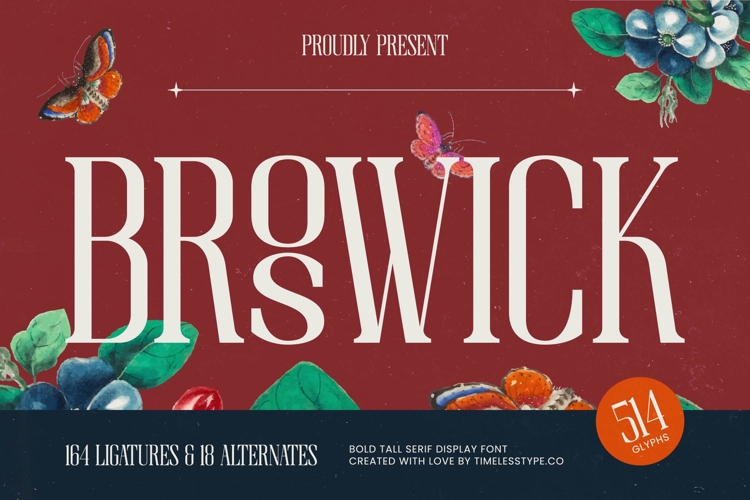
Broswick - Bold Tall Serif Display Font
Unveil unparalleled elegance with Broswick - Bold Tall Serif Display Font, a truly magnificent typeface designed to make an unforgettable statement. This premium display serif commands attention with its imposing height, distinctive bold weighting, and exquisite high-contrast letterforms. It masterfully blends classic sophistication with a contemporary edge, ensuring your designs resonate with authority and refined taste.
Experience exceptional design versatility and global reach through the meticulously crafted details of Broswick - Bold Tall Serif Display Font. Featuring an impressive collection of 164 ligatures and 18 alternates across 514 glyphs, it offers boundless creative possibilities for unique typographic expression. With its extensive multilingual support, Broswick - Bold Tall Serif Display Font adapts seamlessly across global markets, making it incredibly versatile for international projects.
Perfectly suited for projects demanding a touch of prestige, Broswick - Bold Tall Serif Display Font excels in environments where visual impact is paramount. It is ideal for luxury branding, high-end packaging, editorial design, fashion labels, impactful headlines, and compelling advertising campaigns. This font infuses every application with a sense of sophistication, heritage, and undeniable quality.